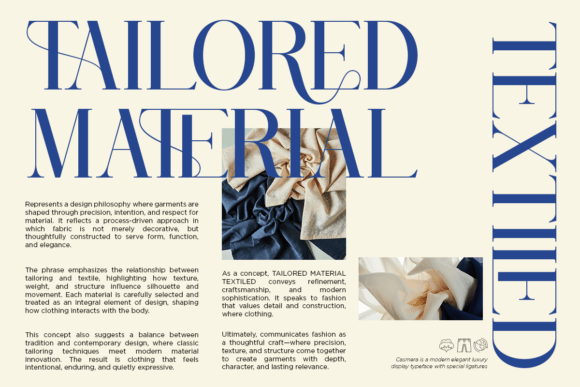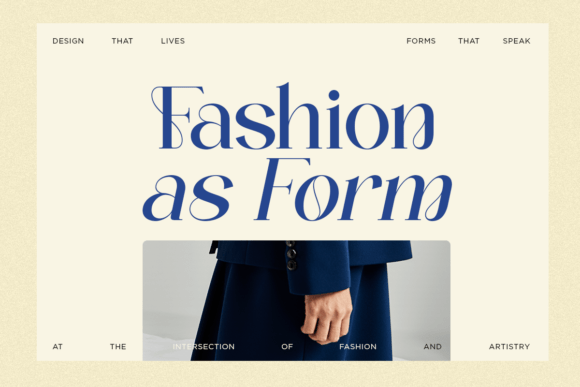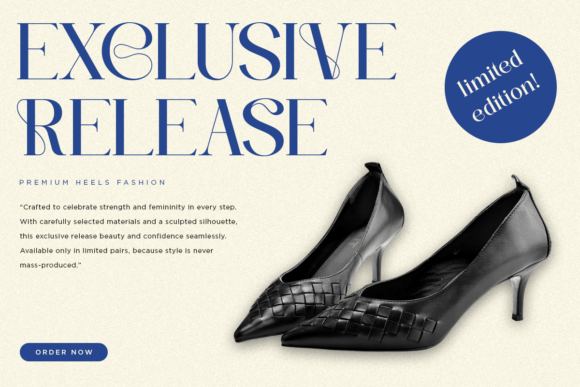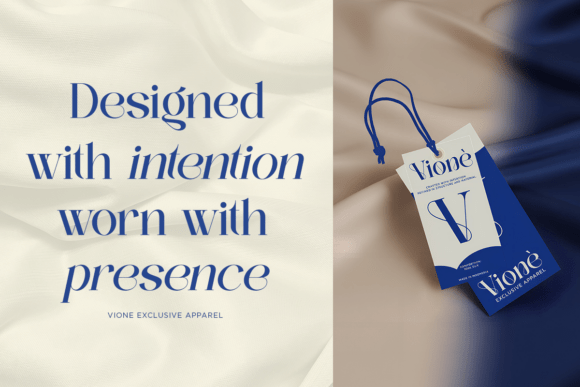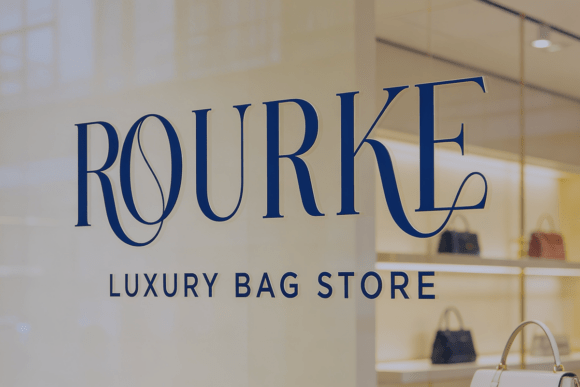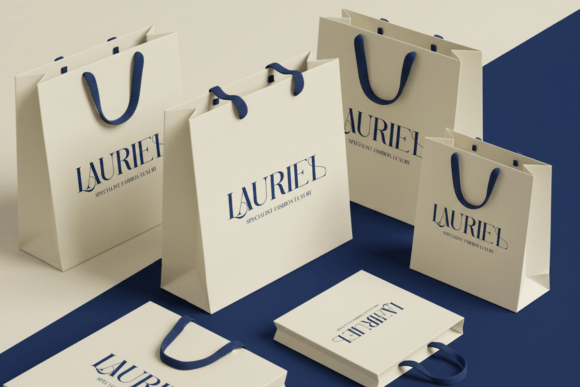
Introduction to Casmera Font
Casmera is an elegant ligature serif font designed to express luxury, refinement, and timeless sophistication.
Crafted with graceful curves, smooth stroke contrast, and artistic ligature connections, Casmera delivers a premium aesthetic that instantly elevates any visual composition Its refined character shapes create a harmonious balance between classic elegance and modern editorial appeal.
Key Features of Casmera Font